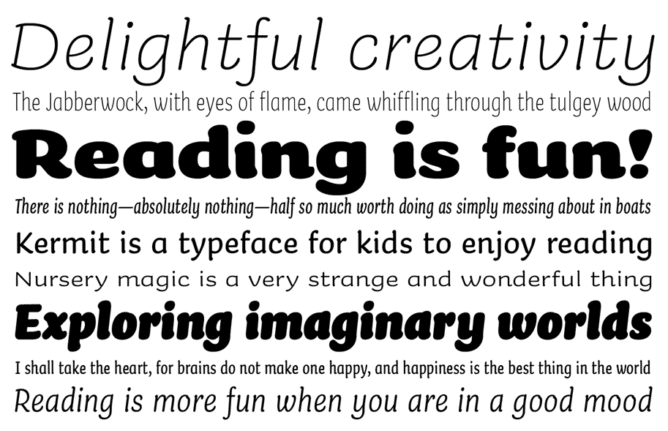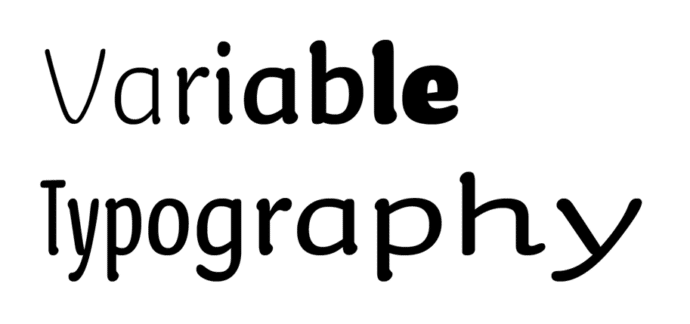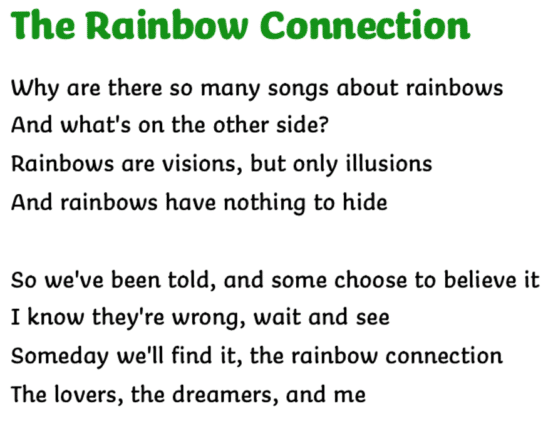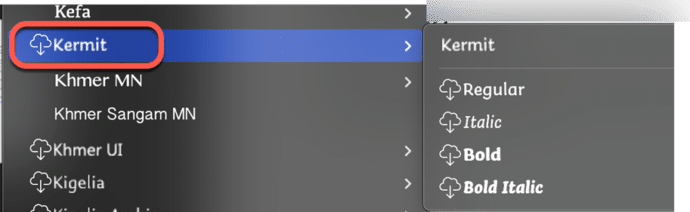
Microsoft 365 has introduced ‘Kermit,’ a new typeface specifically crafted to make reading more accessible and enjoyable for young audiences. Kermit the font aims to address the challenges faced by early readers, including those with dyslexia but has uses for everyone.
Developed in collaboration with the type design studio Underware Kermit font is a casual sans-serif font with a large x-height, thick strokes, and generous spacing. The designers are striking a balance between the informality of handwriting and the structure of classic typefaces.
According to Microsoft, Kermit incorporates typographic representations of prosody—the rhythm and intonation of speech—by varying boldness for volume, width for duration, and vertical position for pitch. This approach not only aids in expressive reading but also enhances comprehension, benefiting all children, including those with hearing impairments.
Kermit includes symbols for Latin, Greek, and Cyrillic alphabets, Microsoft claims support for 426 languages.
There are extreme styles that are not visible in the font menu but are only used behind the scenes for automatic typesetting cases; 14 more ExtraCondensed styles, and 14 ExtraExpanded styles.
Variable font
Kermit is a variable font, which means many variations (Bold, Italic etc) are included in the one font package.
Symbols are described as formulas which means software can adjust the font in an infinite number of ways.
Not just for special needs
While Kermit might have been designed for kids and folks with reading troubles, it has a place for everyone.
Kermit is a casual but readable font, between formal fonts (Aptos, Calibri, Times New Roman etc.) and handwriting or script fonts (Lucida Handwriting etc.).
If you’re looking for a casual font style – check out Kermit font, here used for both the heading and body text.
Kermit can serve as a replacement for the over-used and dreaded Comic Sans,
Other fonts for dyslexics